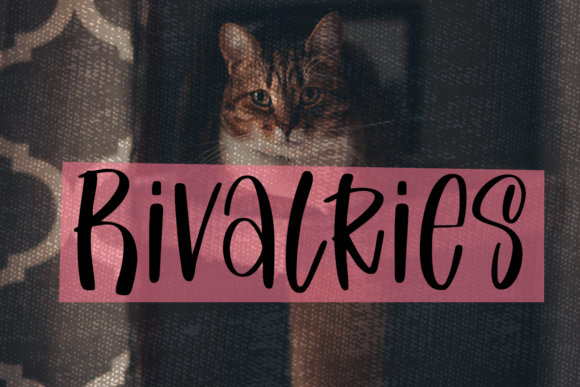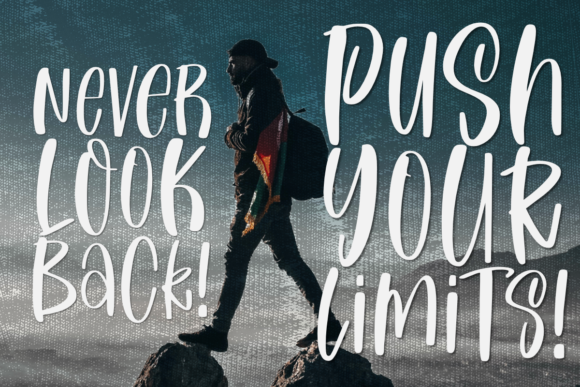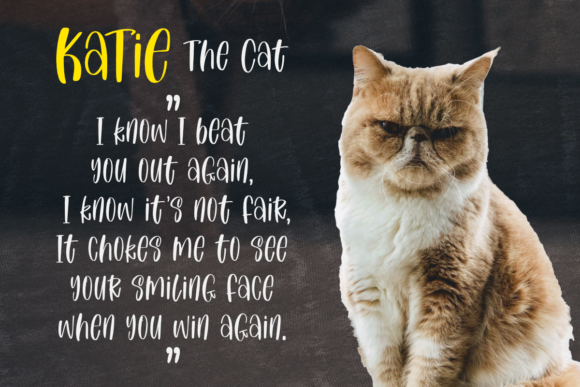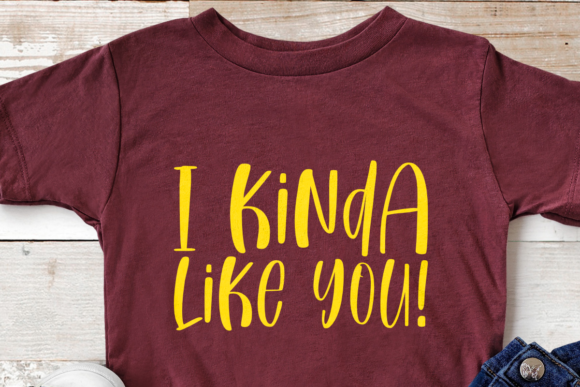
Rivalries Font
About Rivalries Font
Rivalries is a fun and relaxed handwritten font. Whatever the topic, this font will be a wonderful asset to your font library, as it has the potential to enhance any creation.